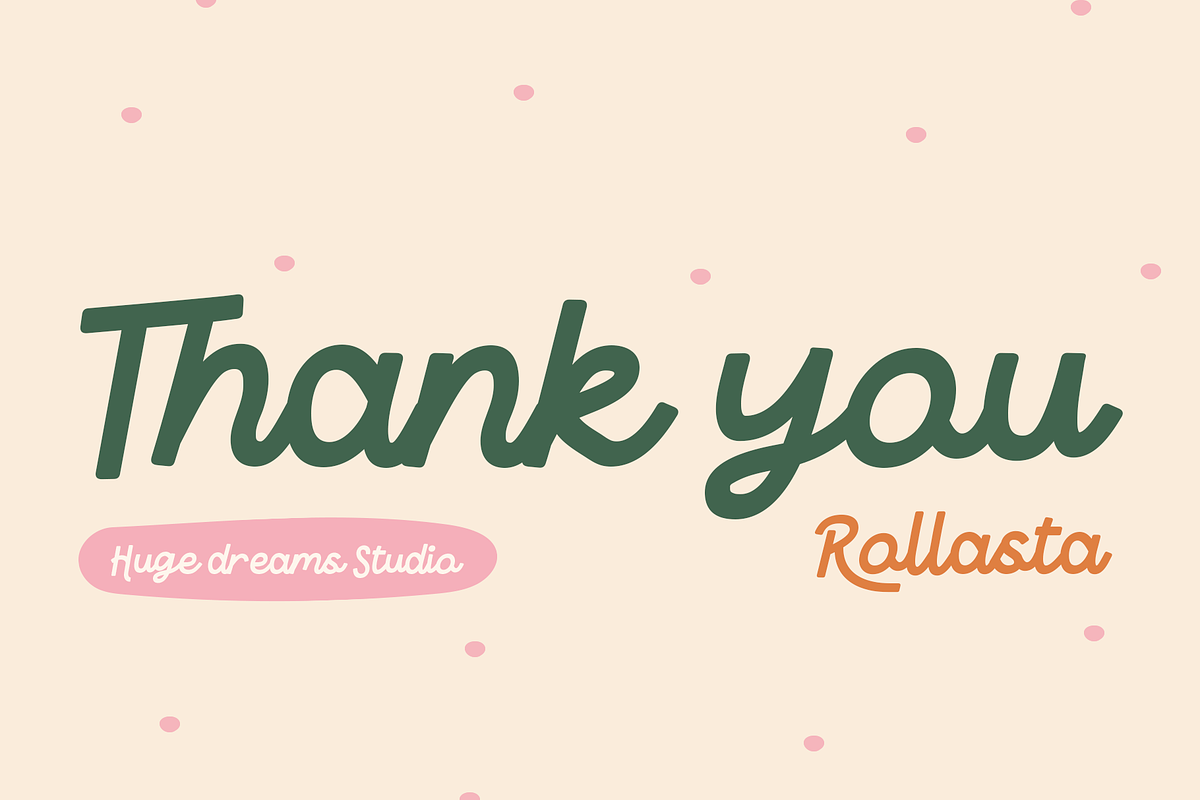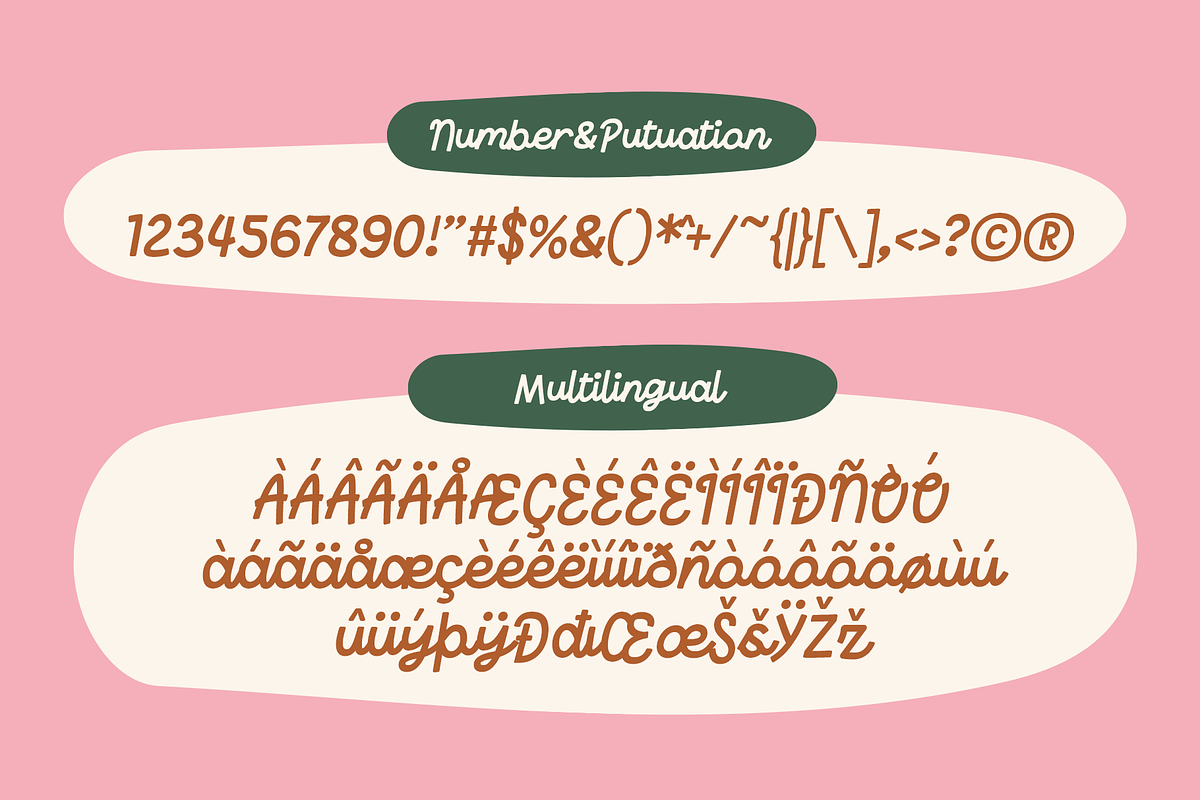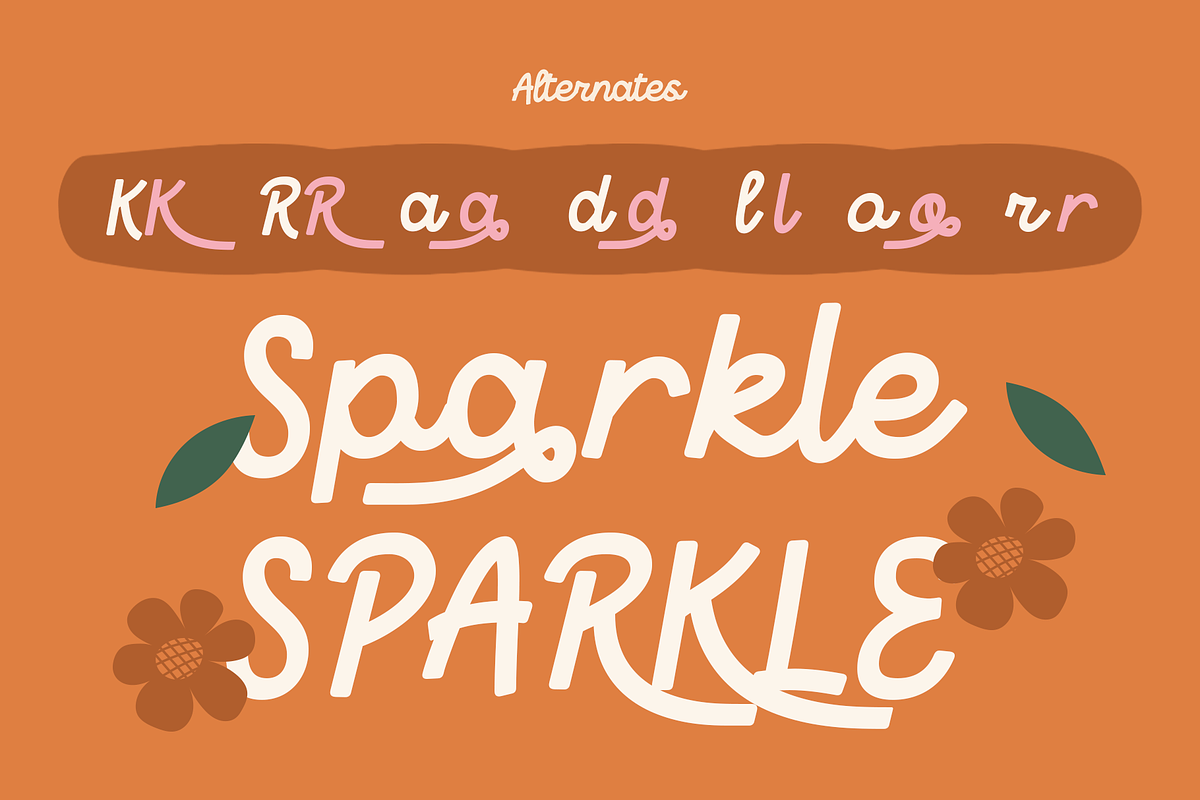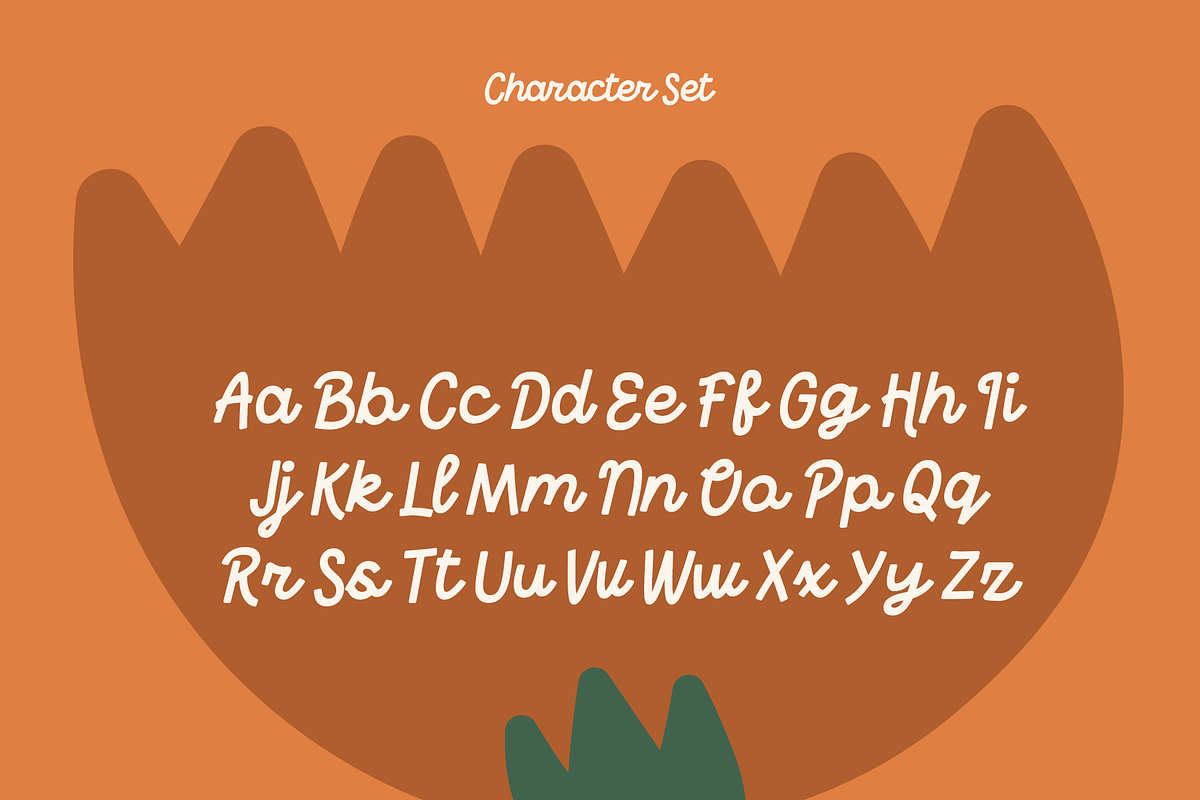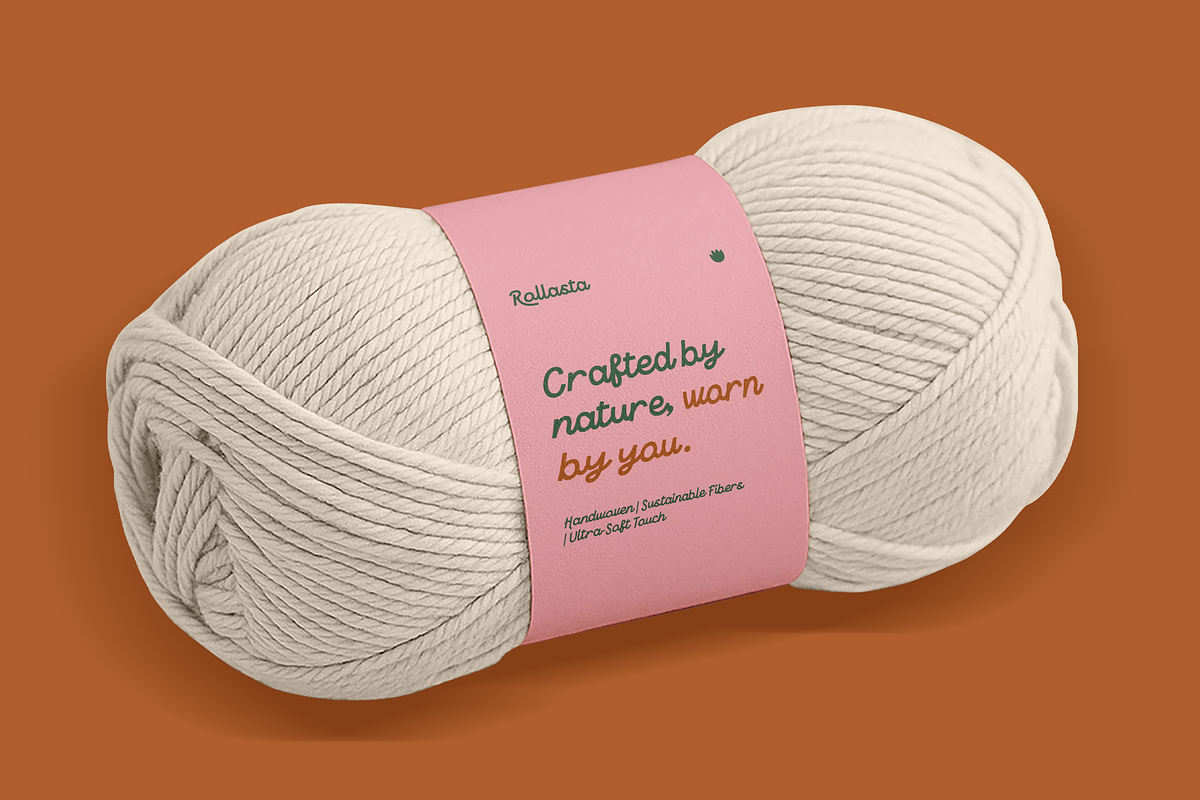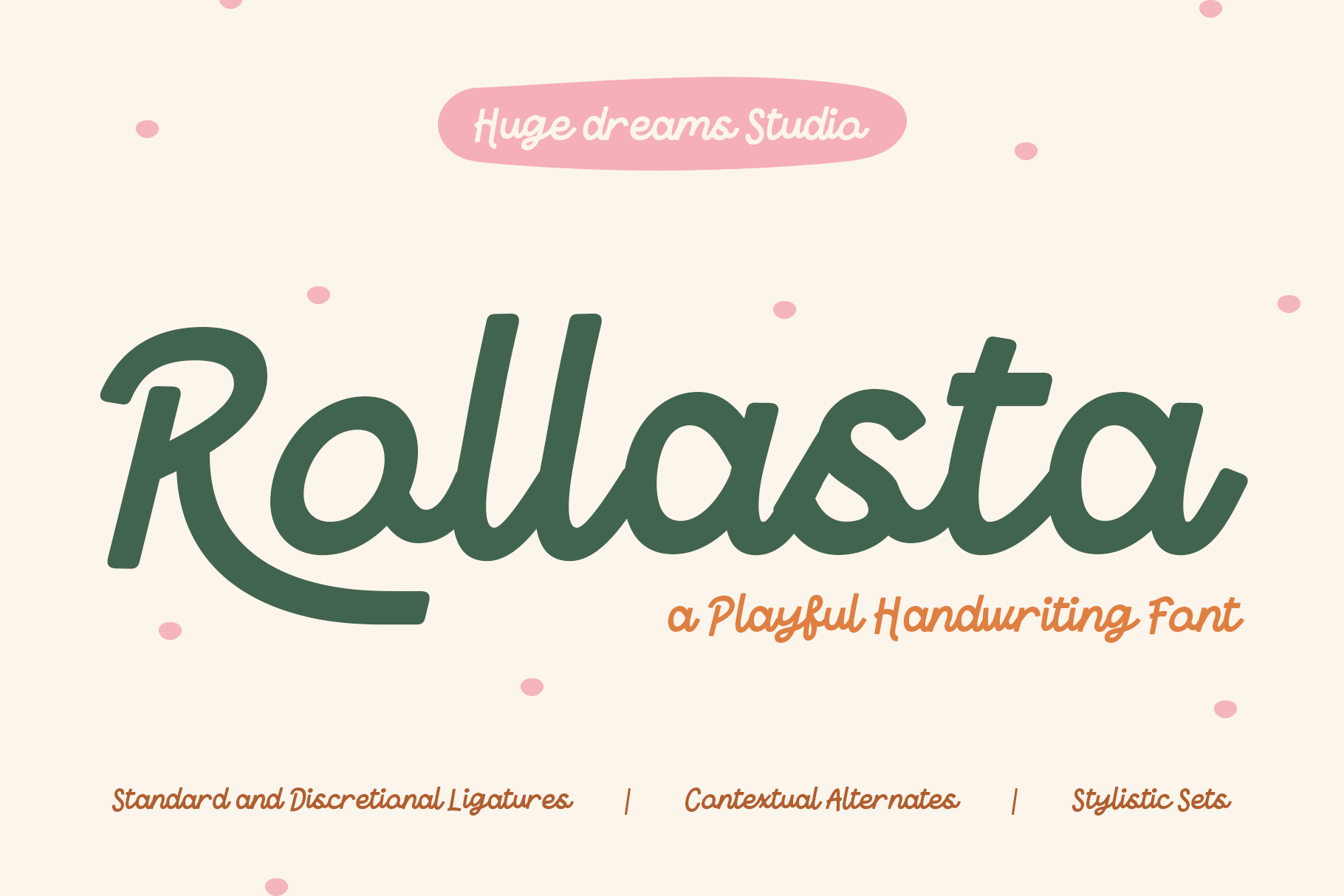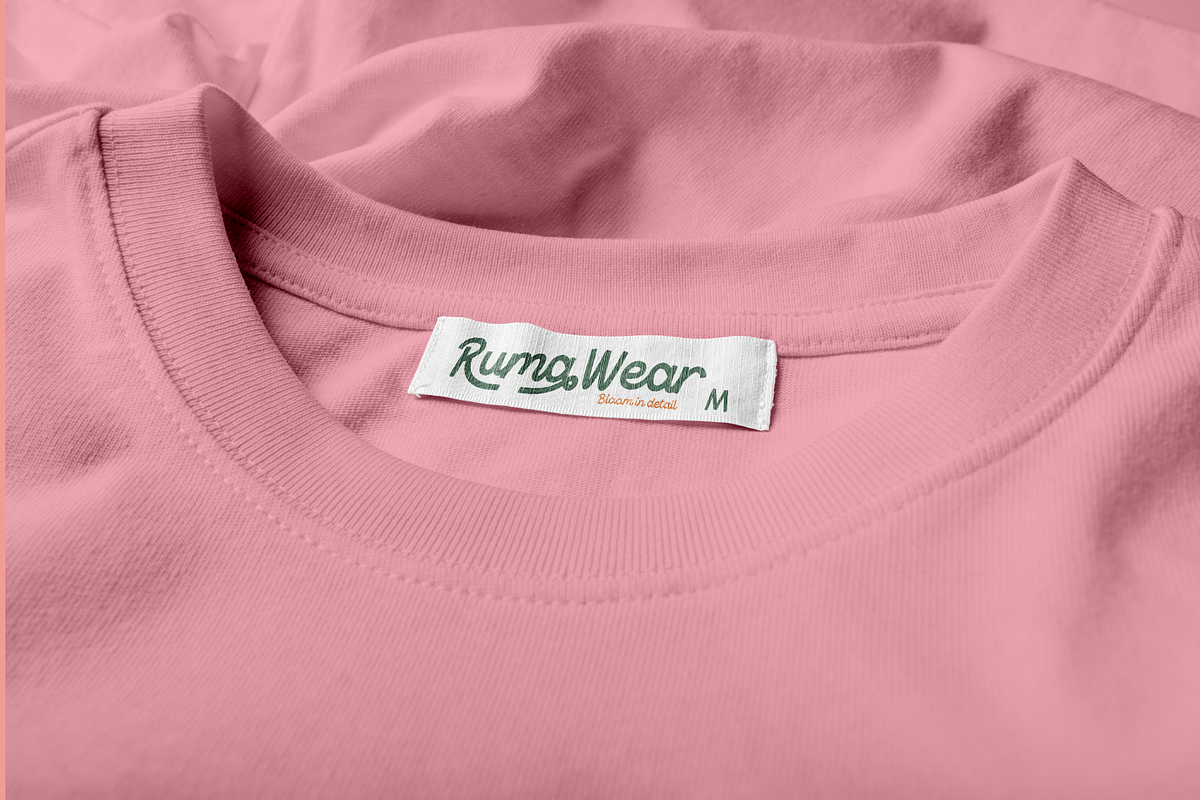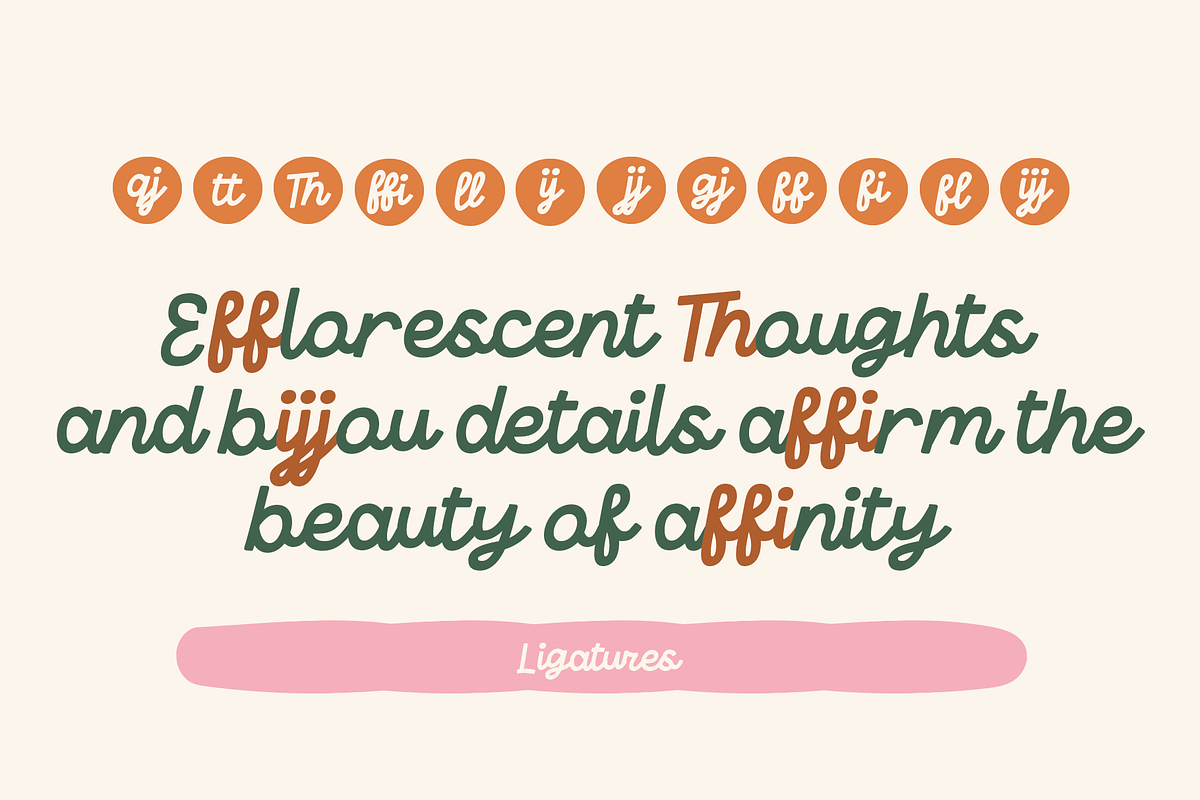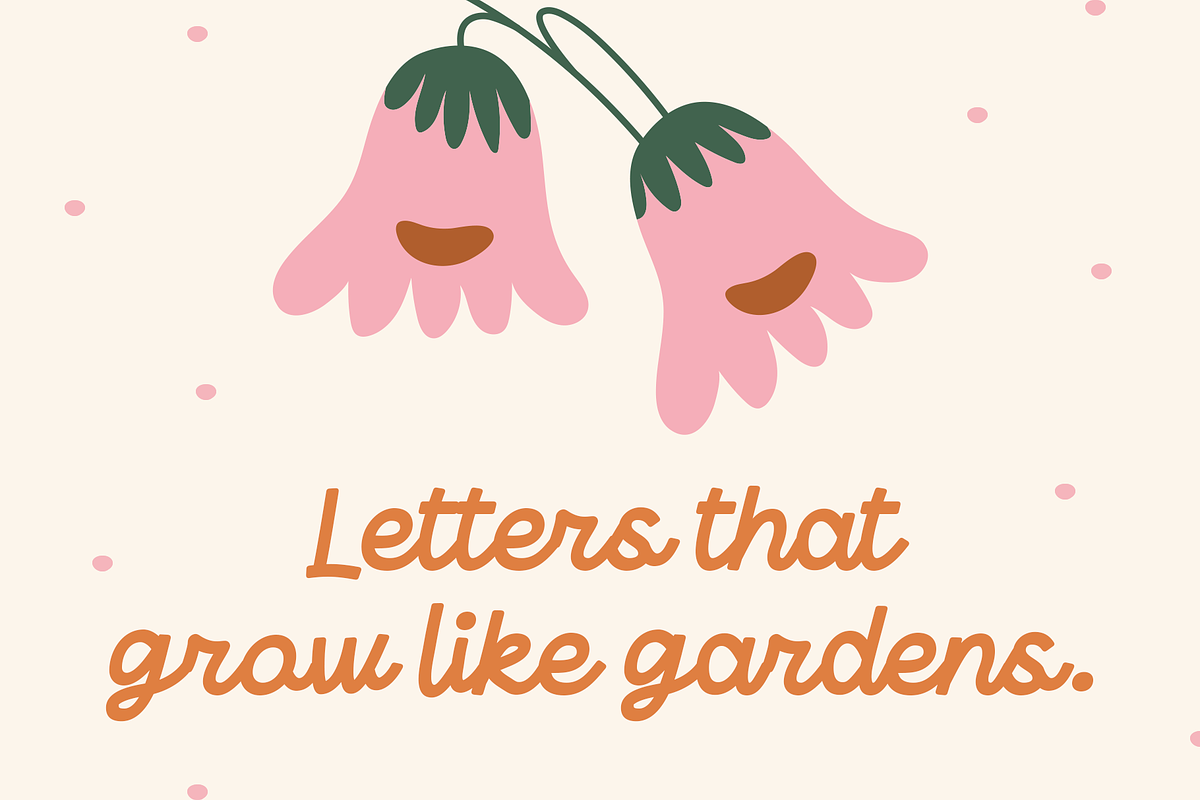
Rollasta – Fancy Script Font
Rollasta – Fancy Script Font is an elegant and stylish typeface that brings a touch of sophistication to your designs. With its flowing curves, delicate strokes, and refined letterforms, Rollasta is perfect for adding a graceful flair to invitations, branding, logos, greeting cards, packaging, and social media posts.
Designed to stand out while maintaining readability, this fancy script font combines charm and modern elegance, making it an ideal choice for projects that need a luxurious and artistic touch.
Rollasta – Fancy Script Font features:
- Punctuation & Numbers